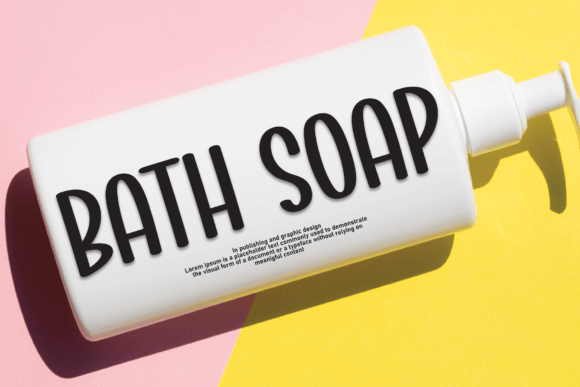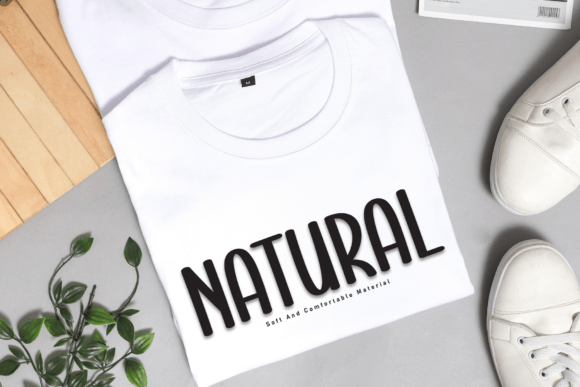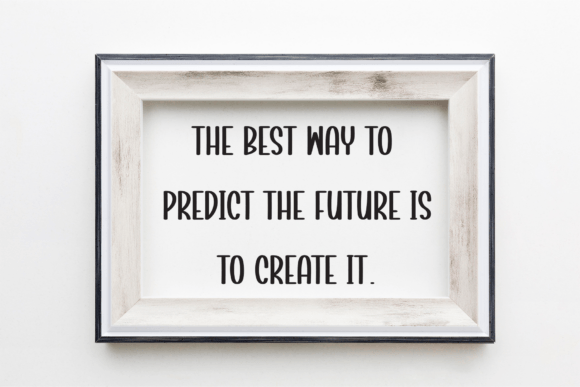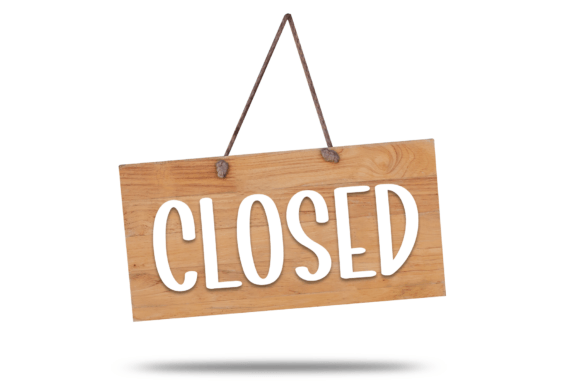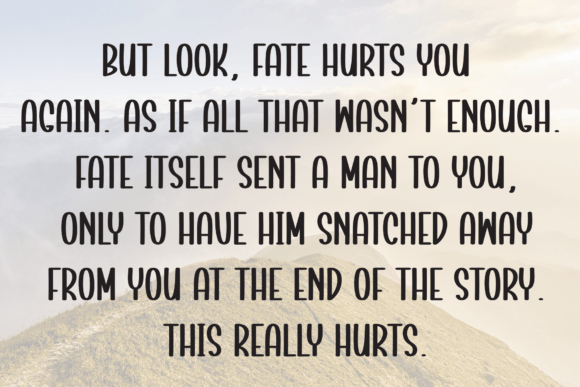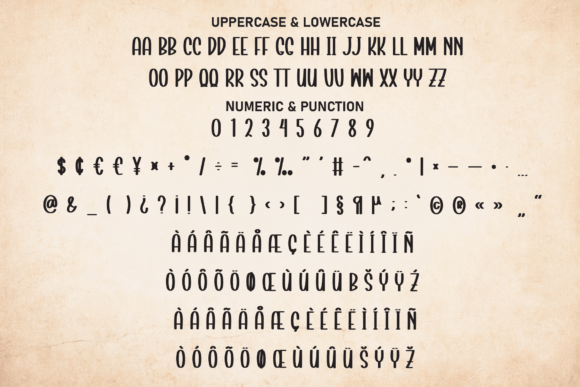
Introduction to Cherish Vintage Font
Introducing a charming and warm handwritten font – the perfect choice for your next creative venture.
With its playful character and endearing persona, it effortlessly elevates the tone of wedding invitations, greeting cards, or any other design demanding a sprinkle of delight Indulge in its authentic lines and sweet charm, promising to add a touch of lighthearted fun to your design work.
Key Features of Cherish Vintage Font
Why Choose Cherish Vintage Font?
Cherish Vintage Font offers exceptional quality and versatility, making it a valuable addition to your design toolkit. Whether you’re creating for personal projects or commercial use, Cherish Vintage Font delivers professional results.